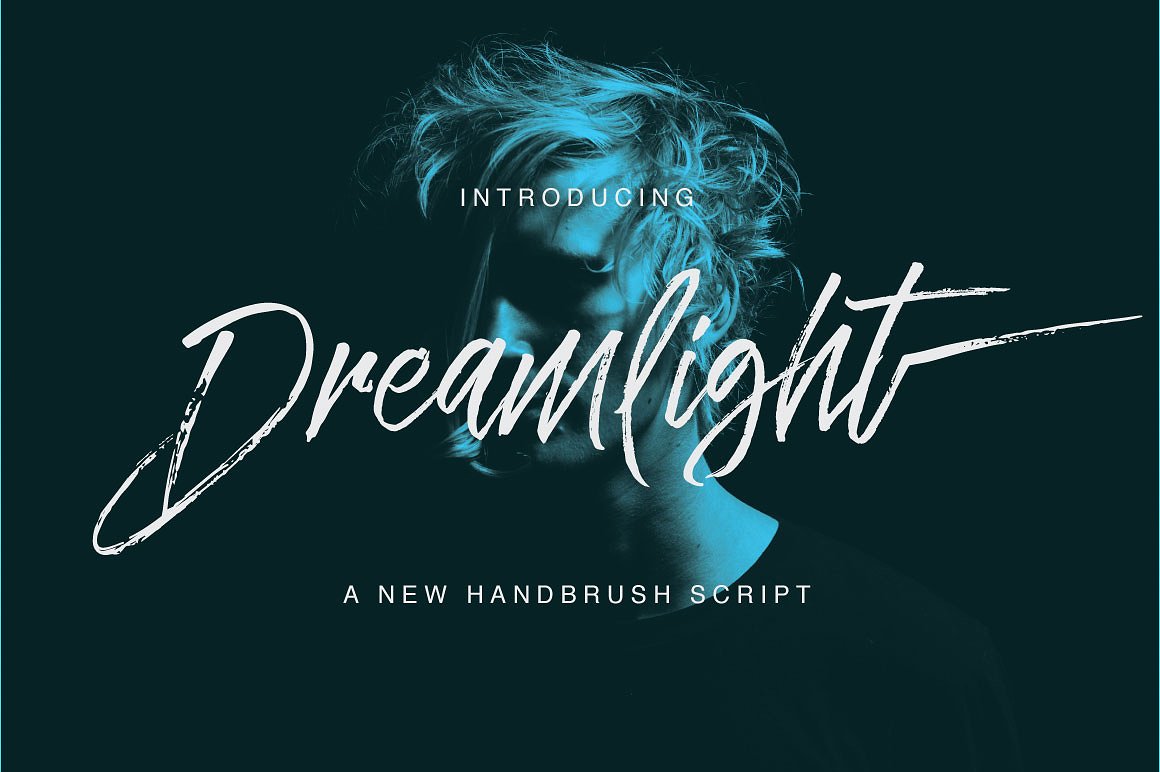
Dreamlight Script
Dreamlight Script Font
Dreamlight Script is a beautiful hand Painting script give the natural looks. Alternate character contain with Ligature and more. You can access all those alternate characters by using OpenType savvy programs such as Adobe Illustrator and Adobe InDesign.